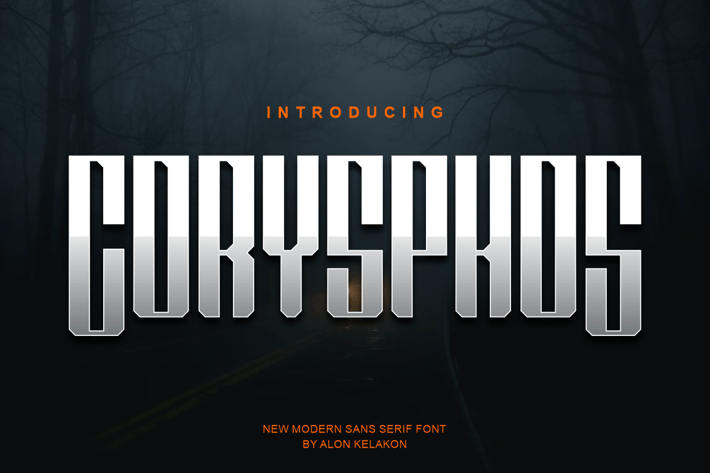
Corysphos Font
Corysphos Font is unique . Ready to use for your design like labeling, clothing, movie sceen, poster, movie title, gigs, album covers, logos, and much more.